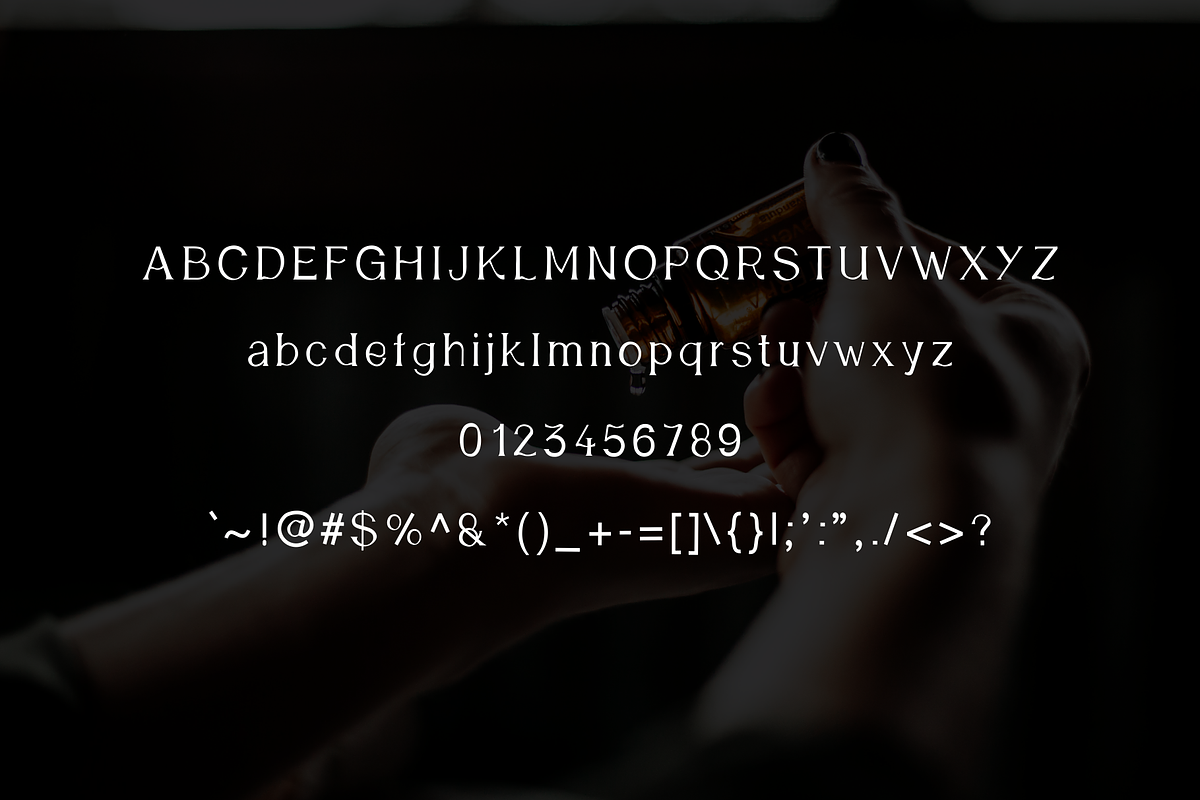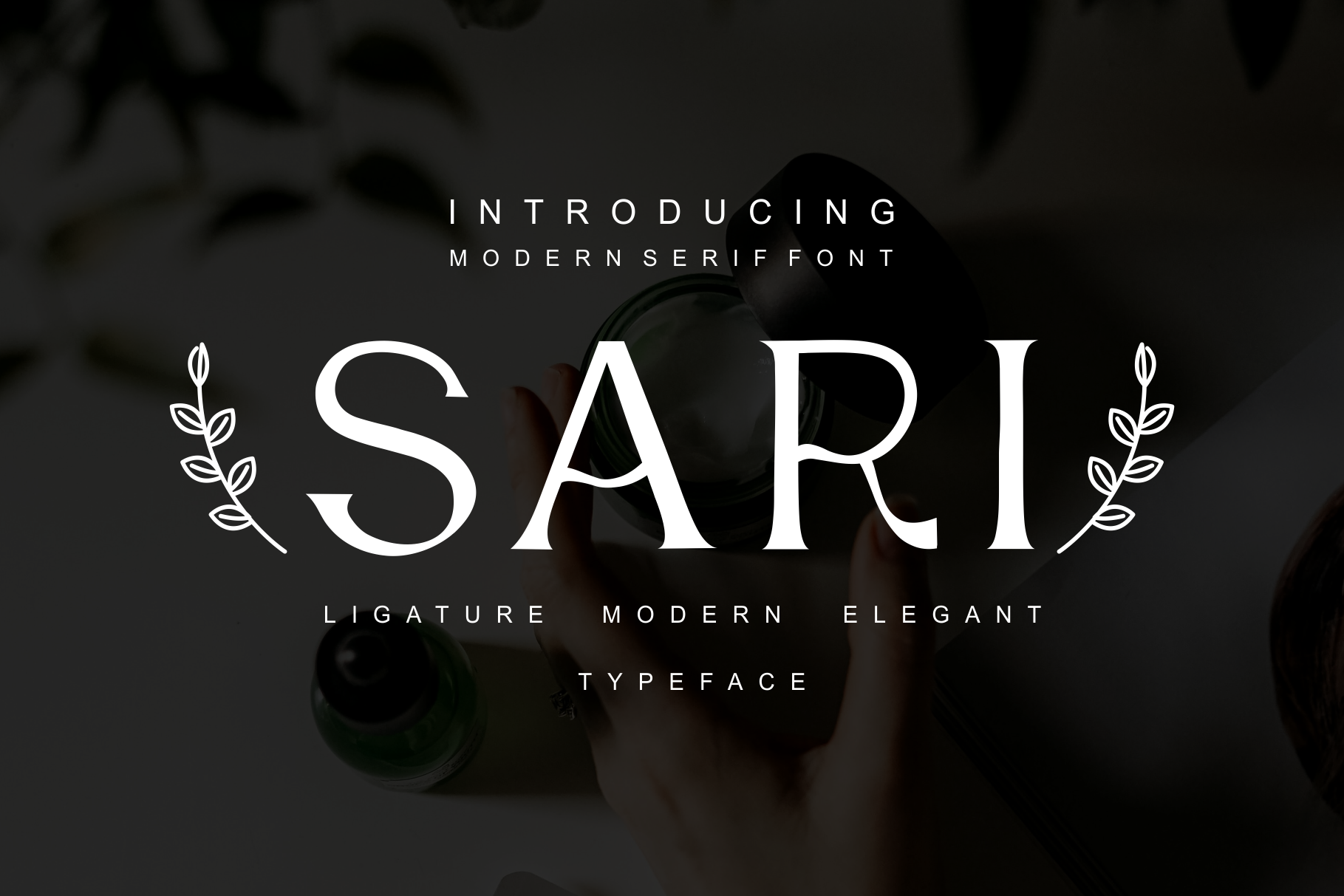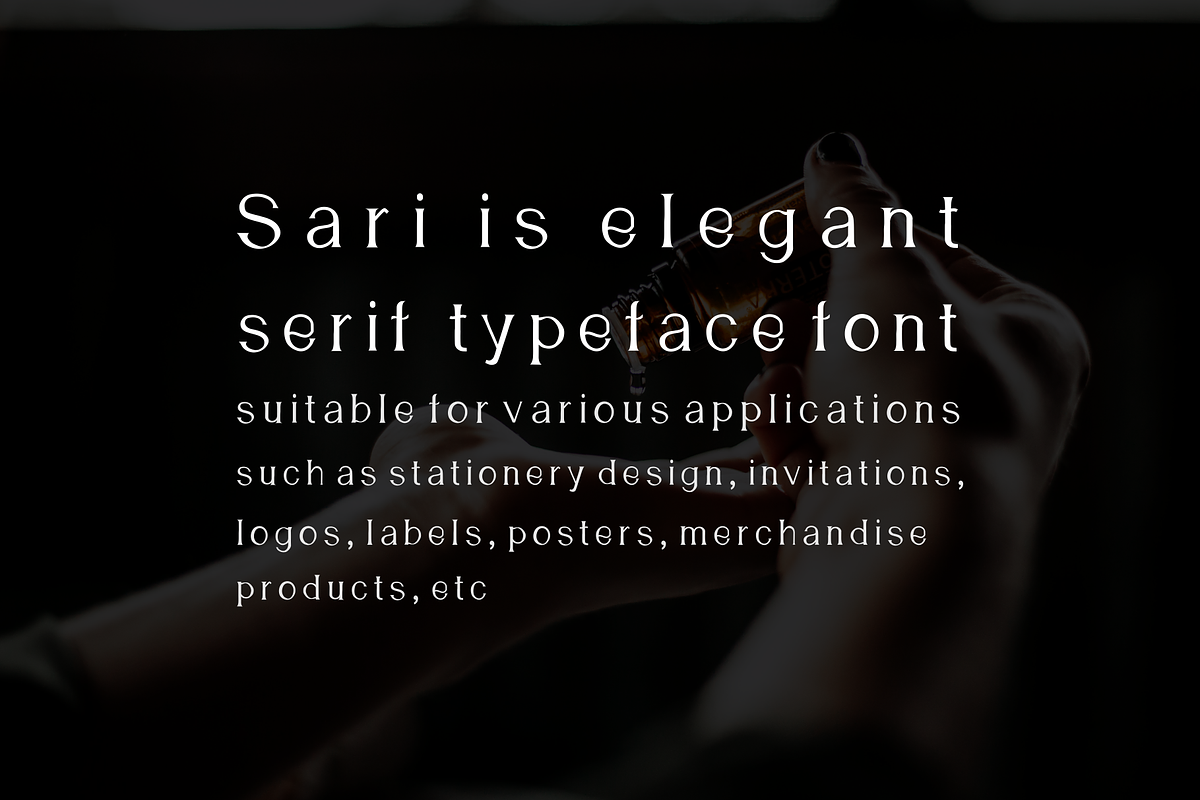
Sari Modern Serif Typeface
Sari is serif Font and also has display font. Can make it easier to convey the message in your design. Use for awesome display, labeling, clothing, movie sceen, poster, movie title, gigs, album covers, logos, and much more. It's also could be good for both fun and semi-formal text.
- UPPERCASE & LOWERCASE